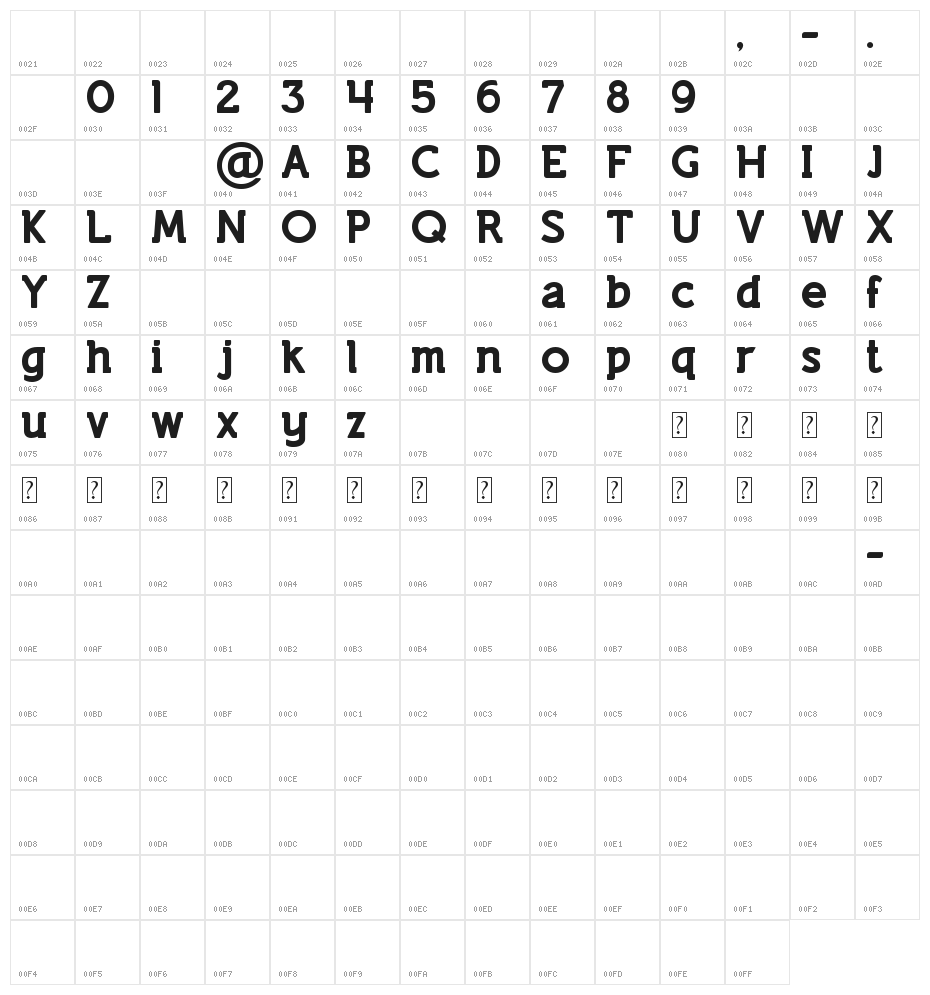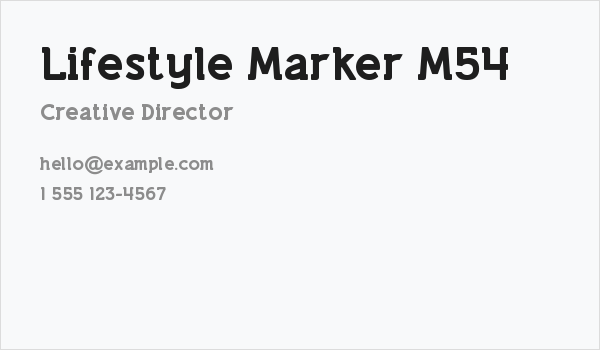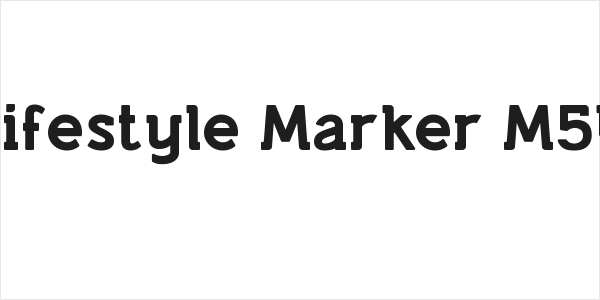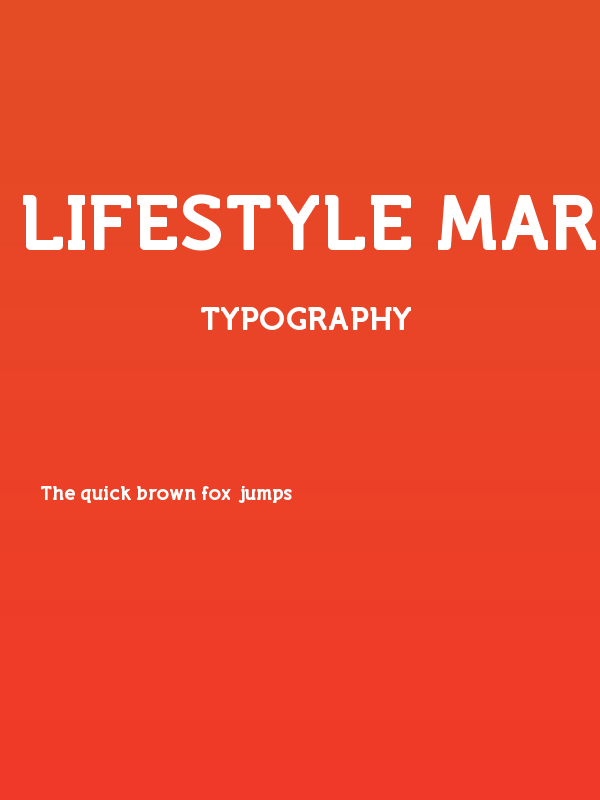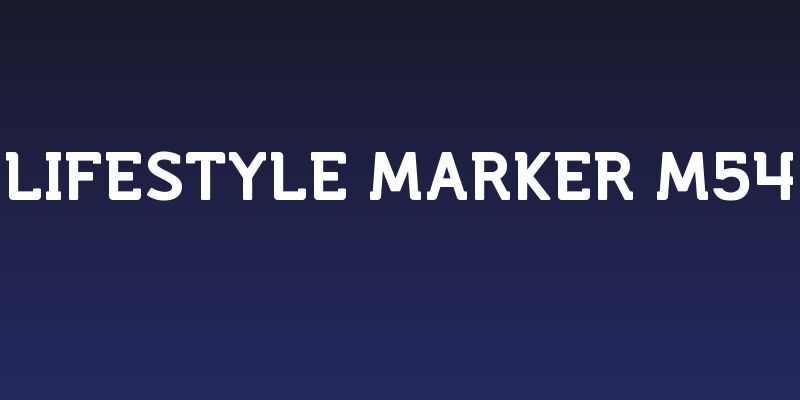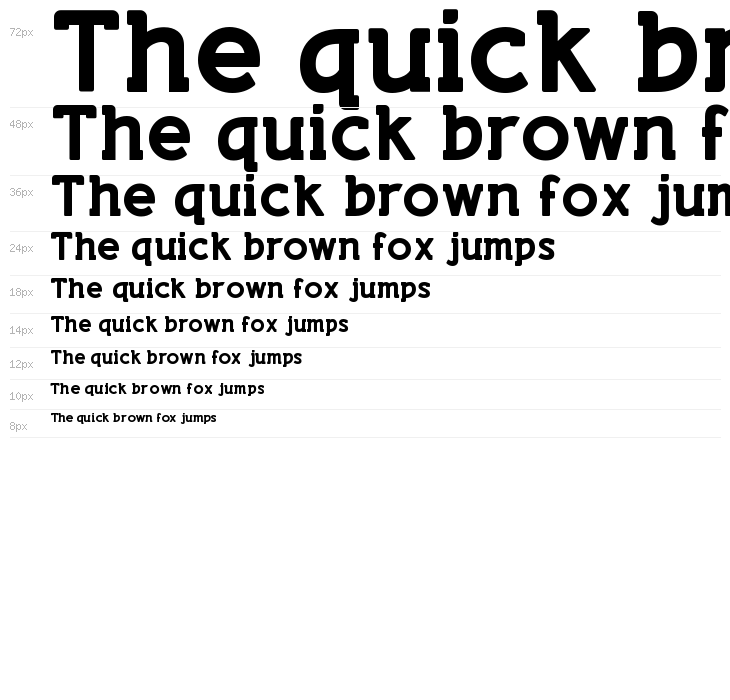
Lifestyle Marker M54 Font
Lifestyle Marker M54 Description
This font features bold, rounded characters with a playful and approachable style. The uppercase letters are uniform in height, while the lowercase letters maintain a consistent baseline with slight variations in ascenders and descenders. The numerals are clear and easy to read, matching the overall boldness of the alphabet. The special characters are distinct and maintain the same rounded style, ensuring consistency across all glyphs. This font is designed to be eye-catching and friendly, making it suitable for a variety of creative projects.
| Proposed Projects | Ideal for children's books, playful branding, casual invitations, and creative posters. |